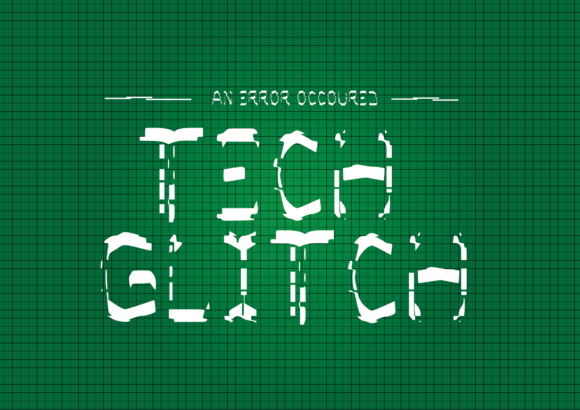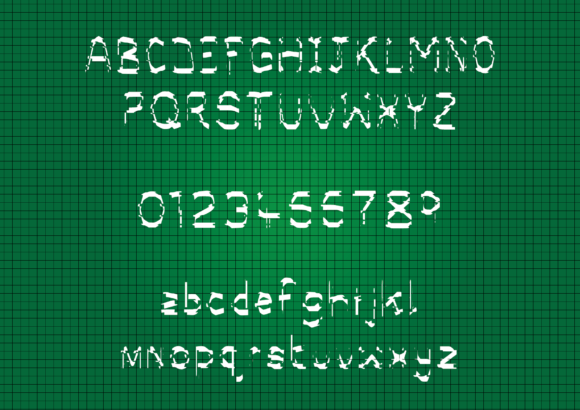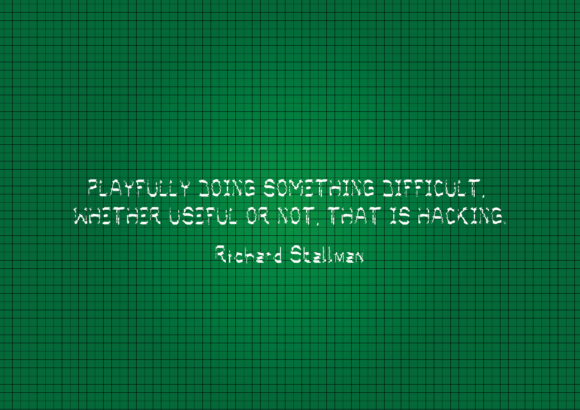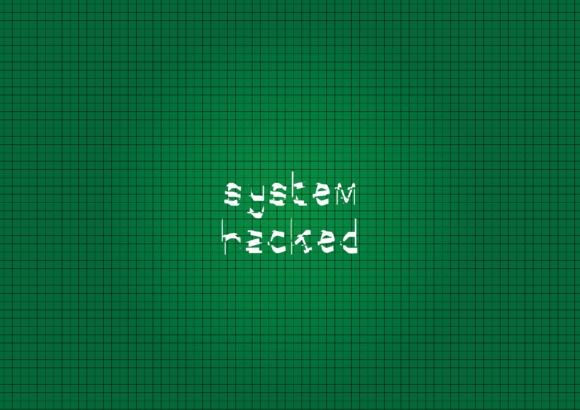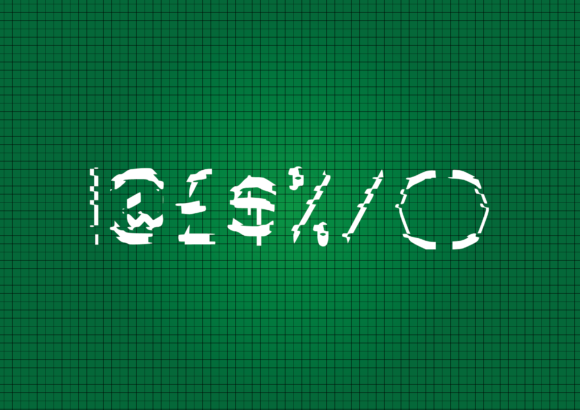
Tech Glitch Font
About Tech Glitch Font
Tech Glitch is a futuristic and fun handwritten font with a cool feel. Get inspired by its modern, rough and digital aesthetic.